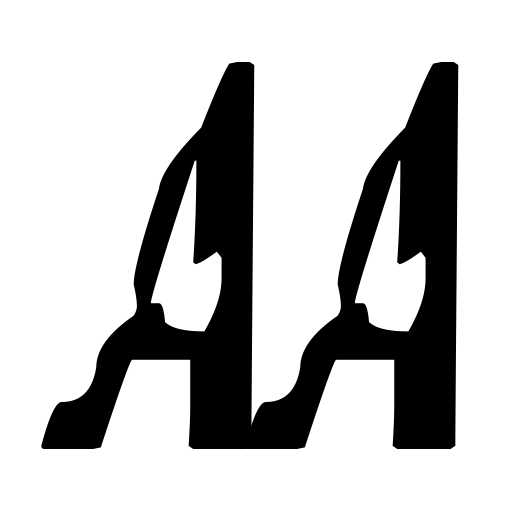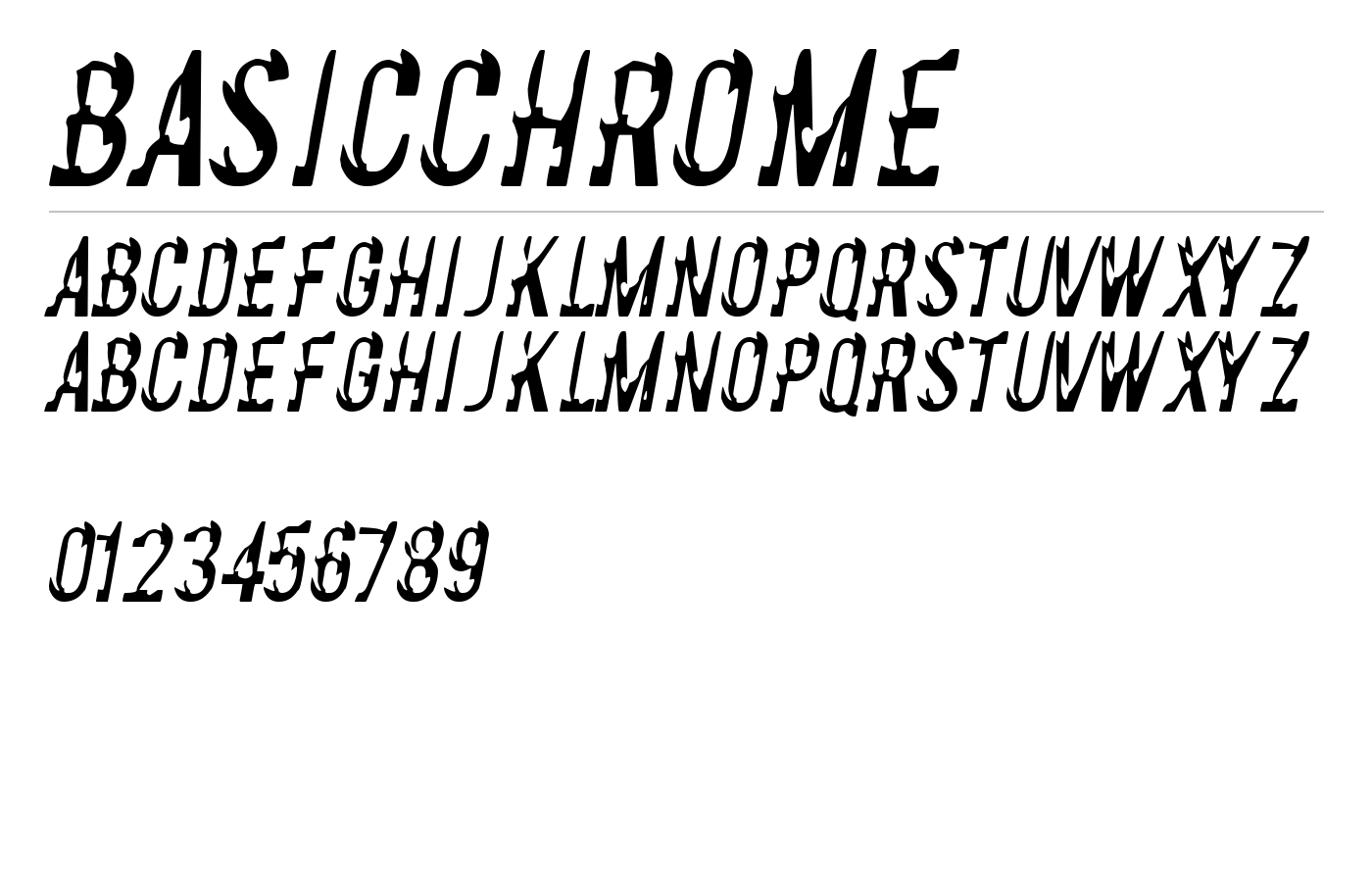
BasicChrome Font is a bold, condensed serif typeface with a strong vintage vibe, featuring sharp, irregular serifs and high contrast between thick and thin strokes. Its slanted letterforms and distinctive, edgy details create a dynamic, slightly distressed look that works well for eye-catching headlines, retro branding, posters, and packaging where a bold, unique personality is desired. This font captures attention with its dramatic style, making it ideal for designs that want to convey energy and a nostalgic yet modern flair.
BasicChrome Font
About BasicChrome Font